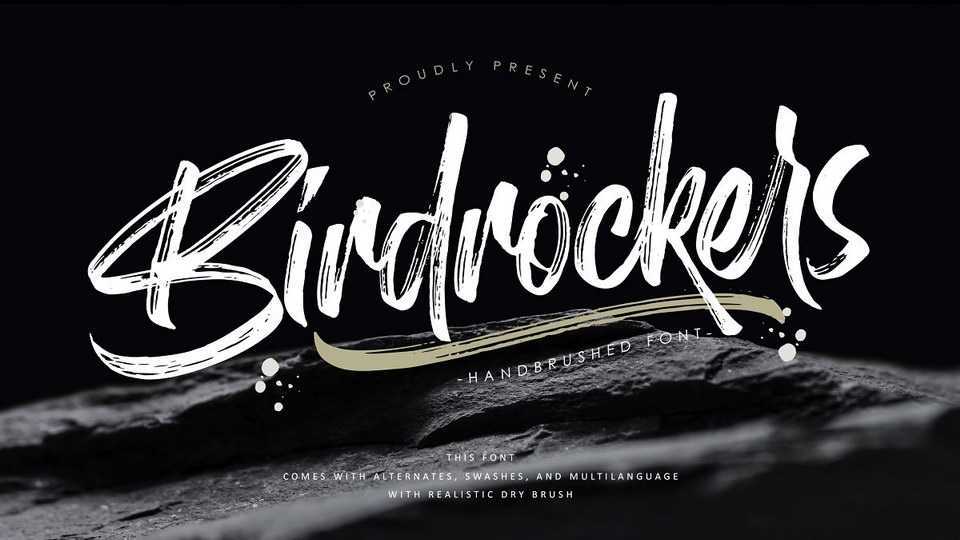
Download Birdrockers font, a realistic hand brushed script made with natural authentic brush, and also provided some alternate, ligatures and extra swashes.
Designer: Roch Art